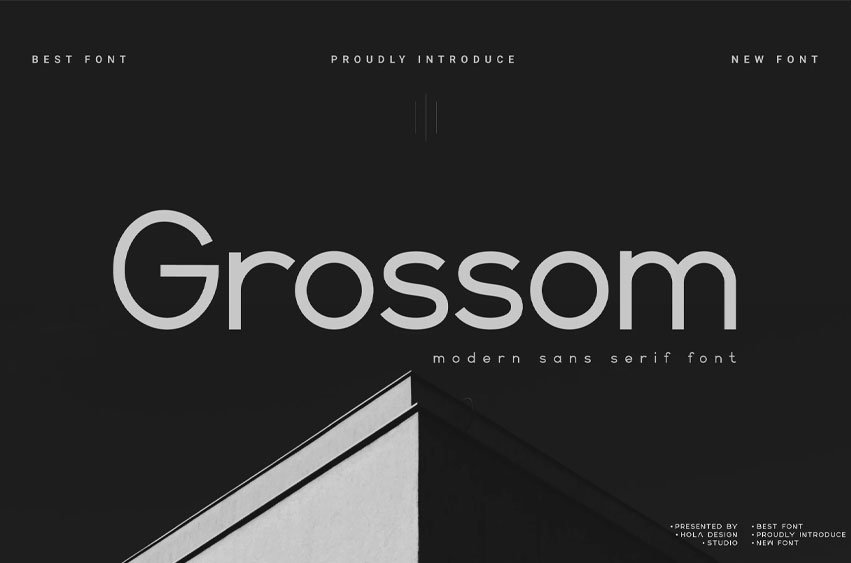
Grossom Font
Grossom Font Ready to use for your design like labeling, movie sceen, poster, movie title, gigs, album covers, logos, and much more.
It is perfect for your upcoming projects.